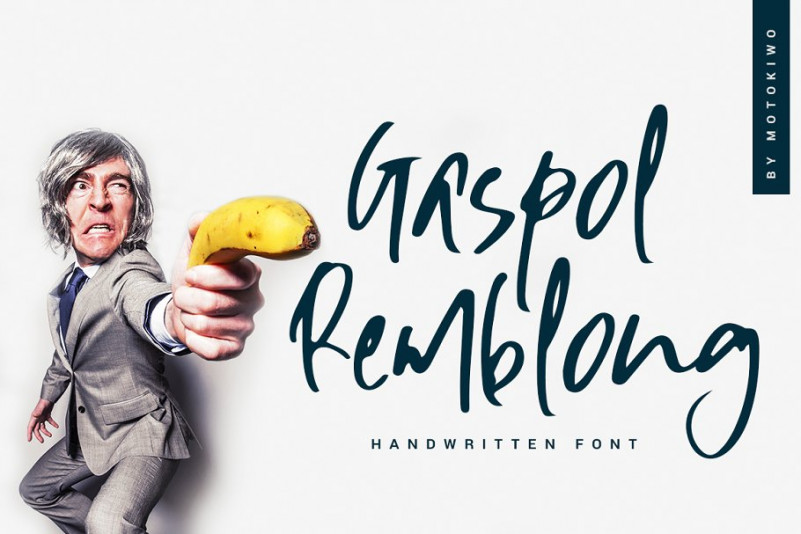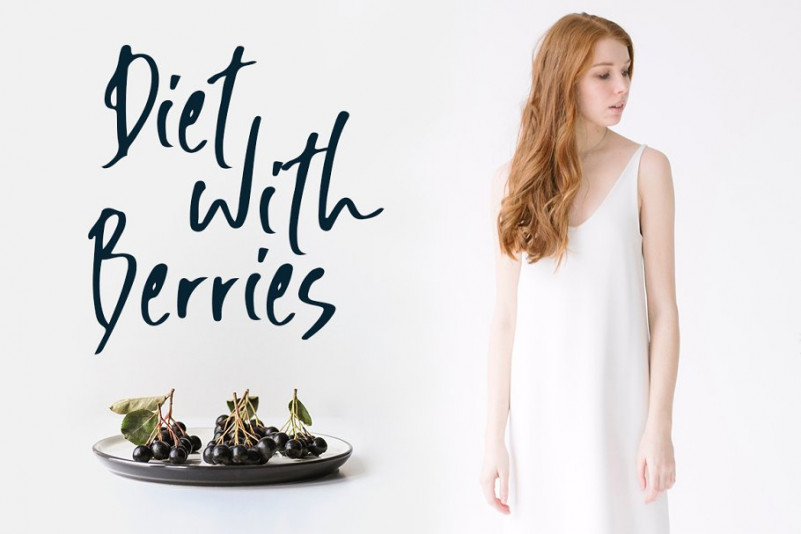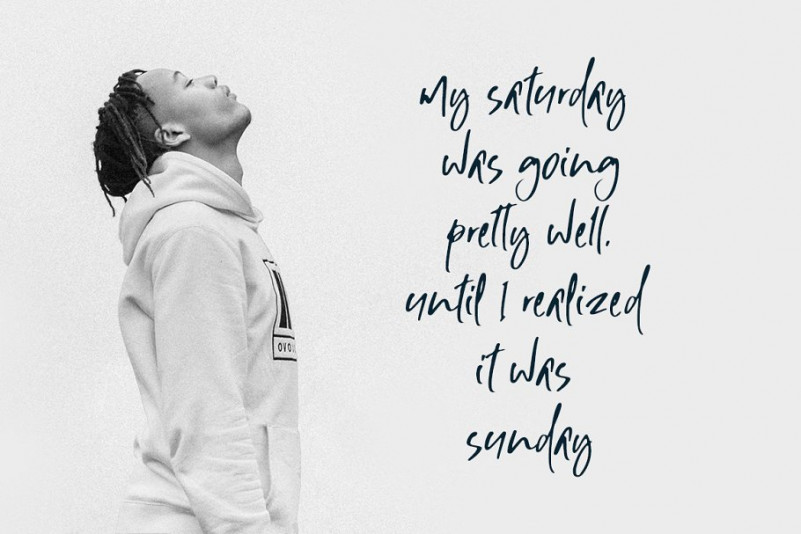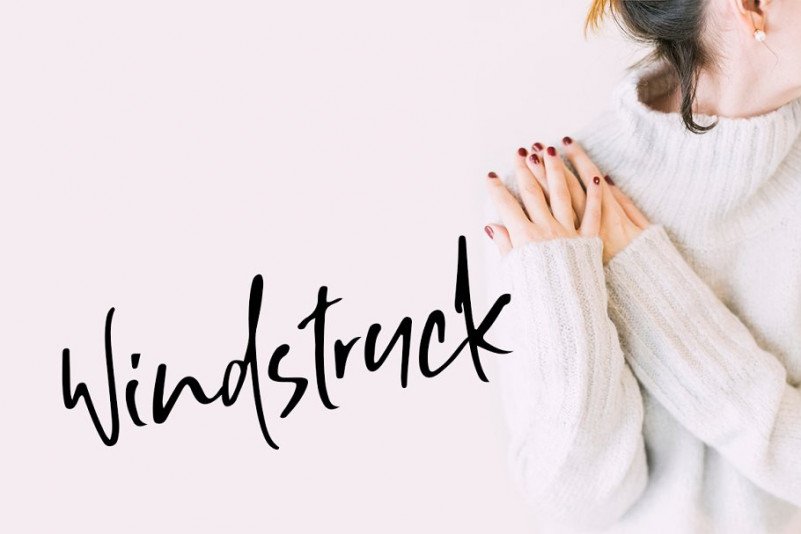
Gaspol Remblong Handwritten Font
Gaspol Remblong Handwritten
Introducing Gaspol Remblong Font. A fashionable and super-chilled new handwriting font script! This calligraphy harmony gives the impression of being luxurious, free and sophisticated. It’s designed and shared by Motokiwo. It’s a natural handwritten script font with attractive style. It’s fun typeface that recommended for headline, poster, movie, music, branding, and logo. Gaspol Remblong packed with Uppercase, Lowercase, Numeral, Punctuation, Multilingual, and also Ligature.